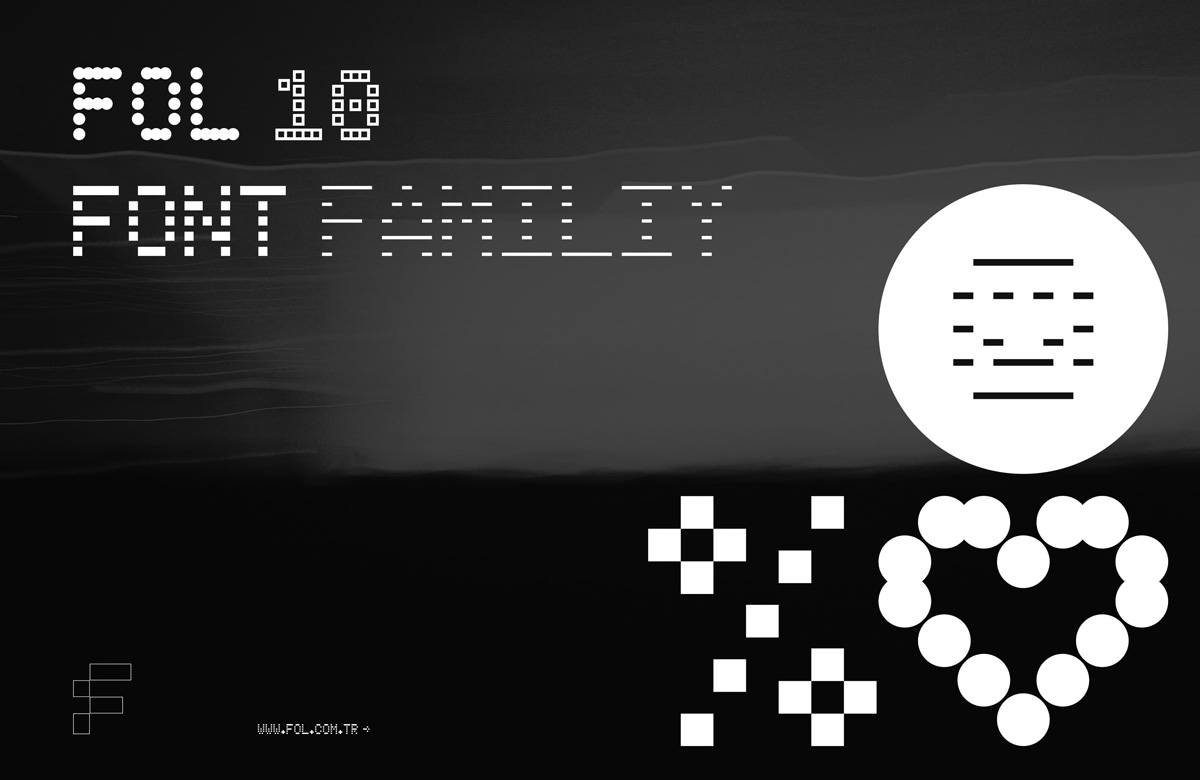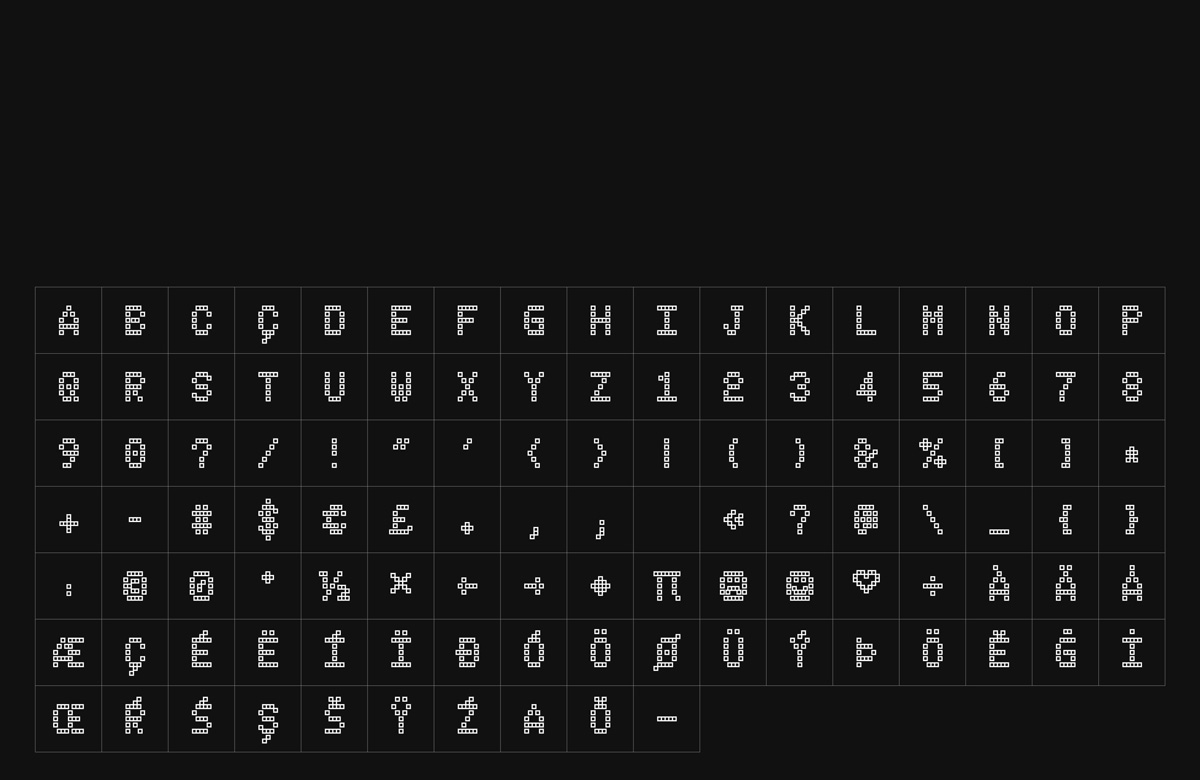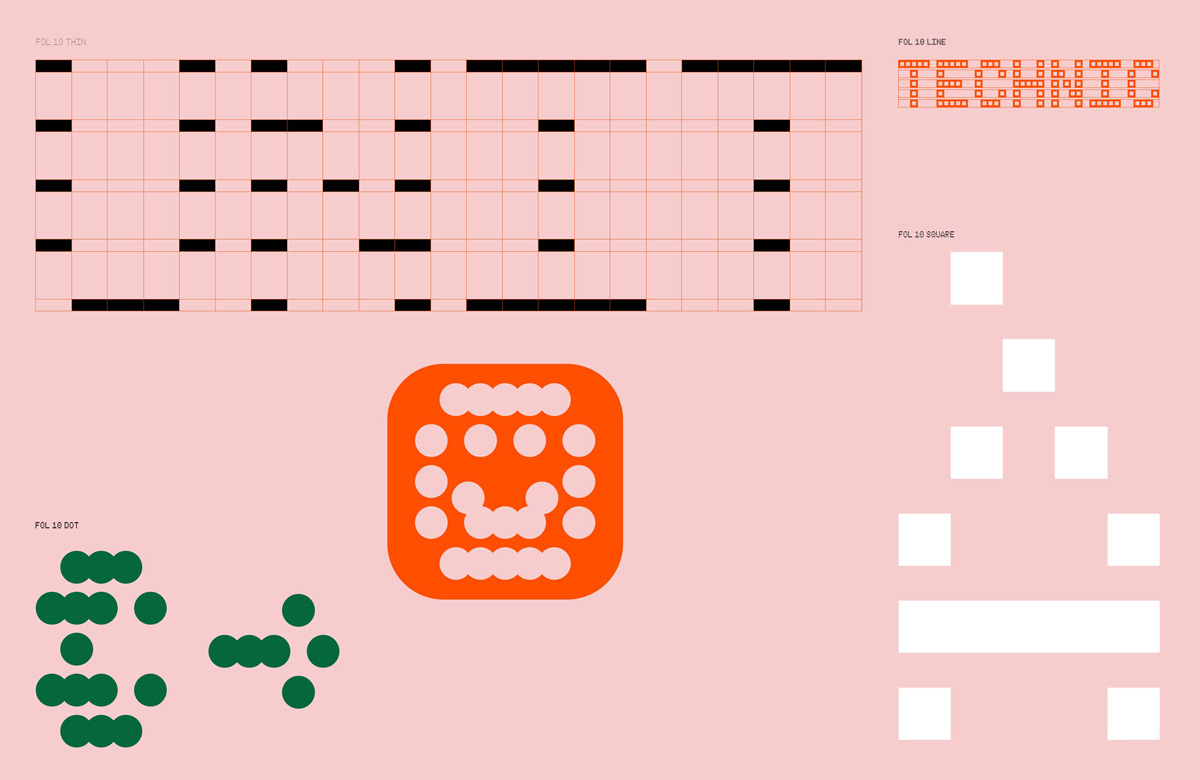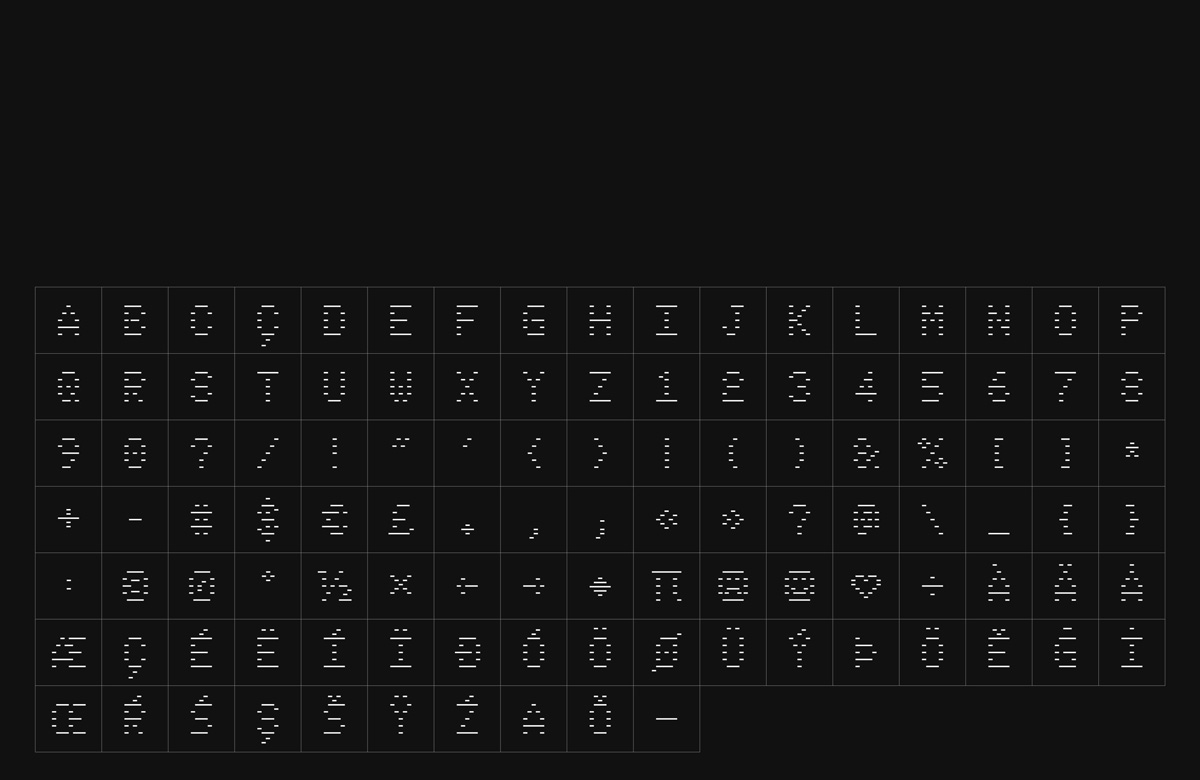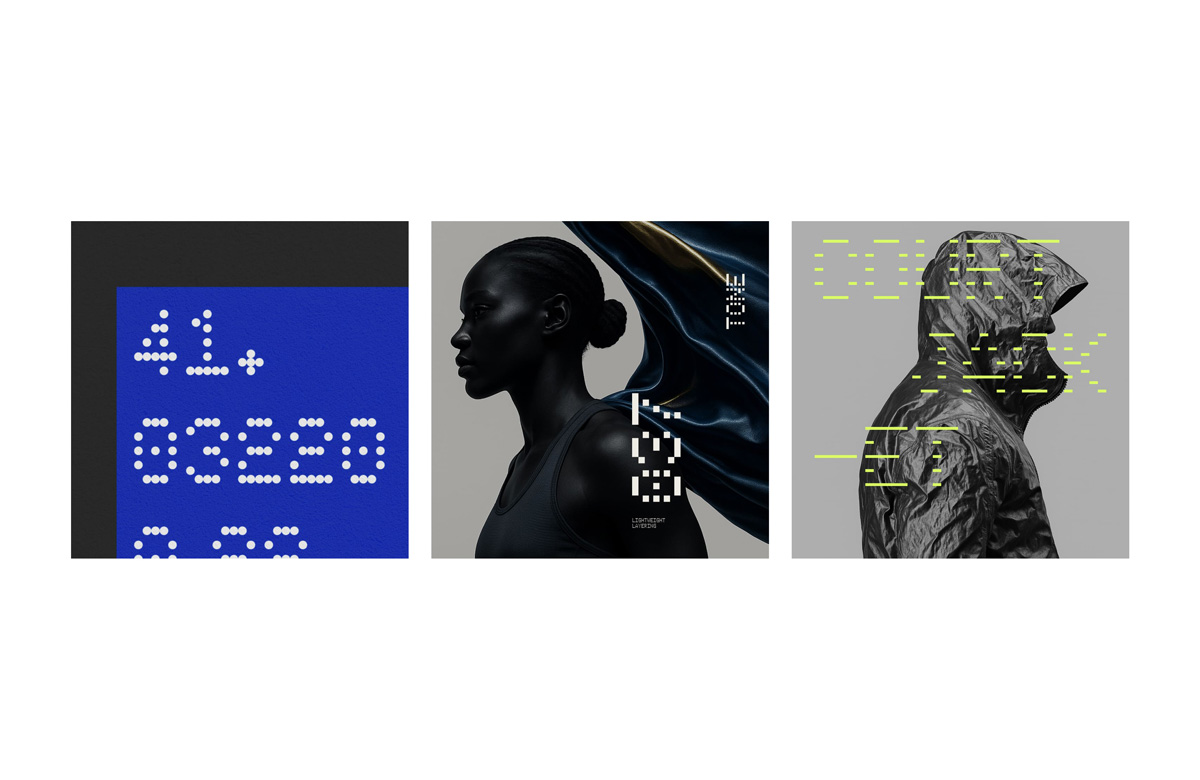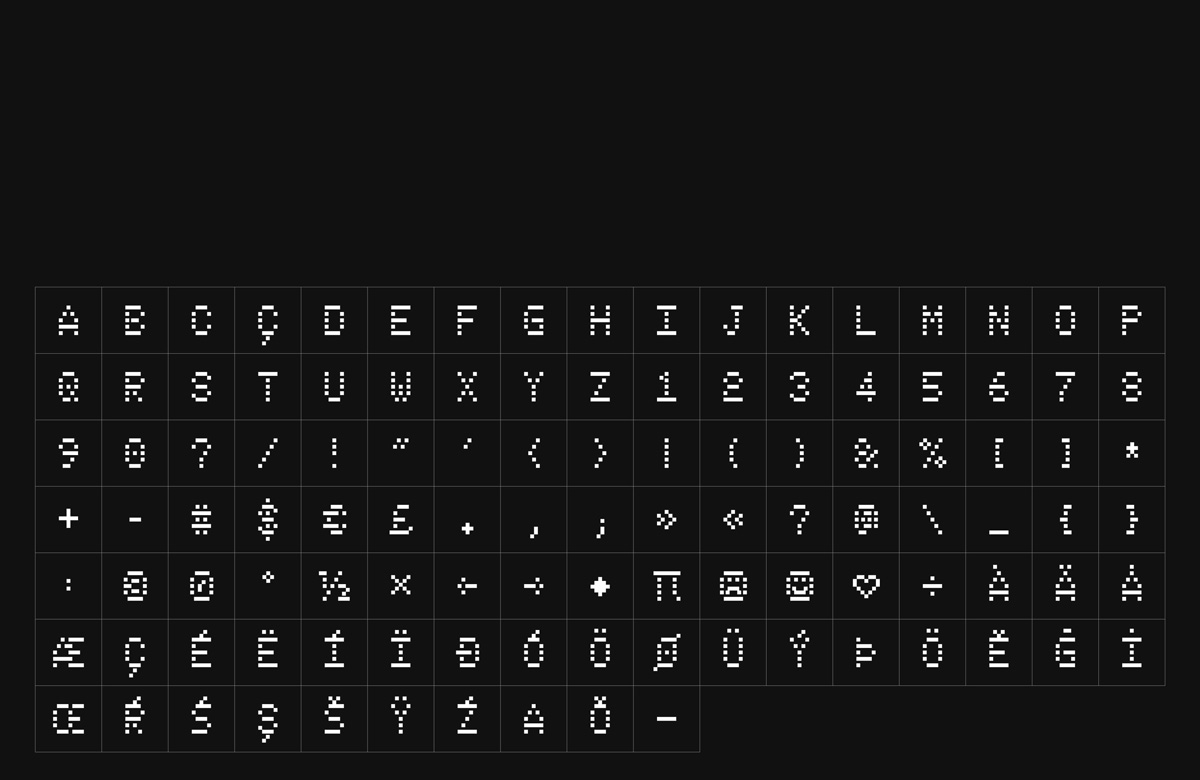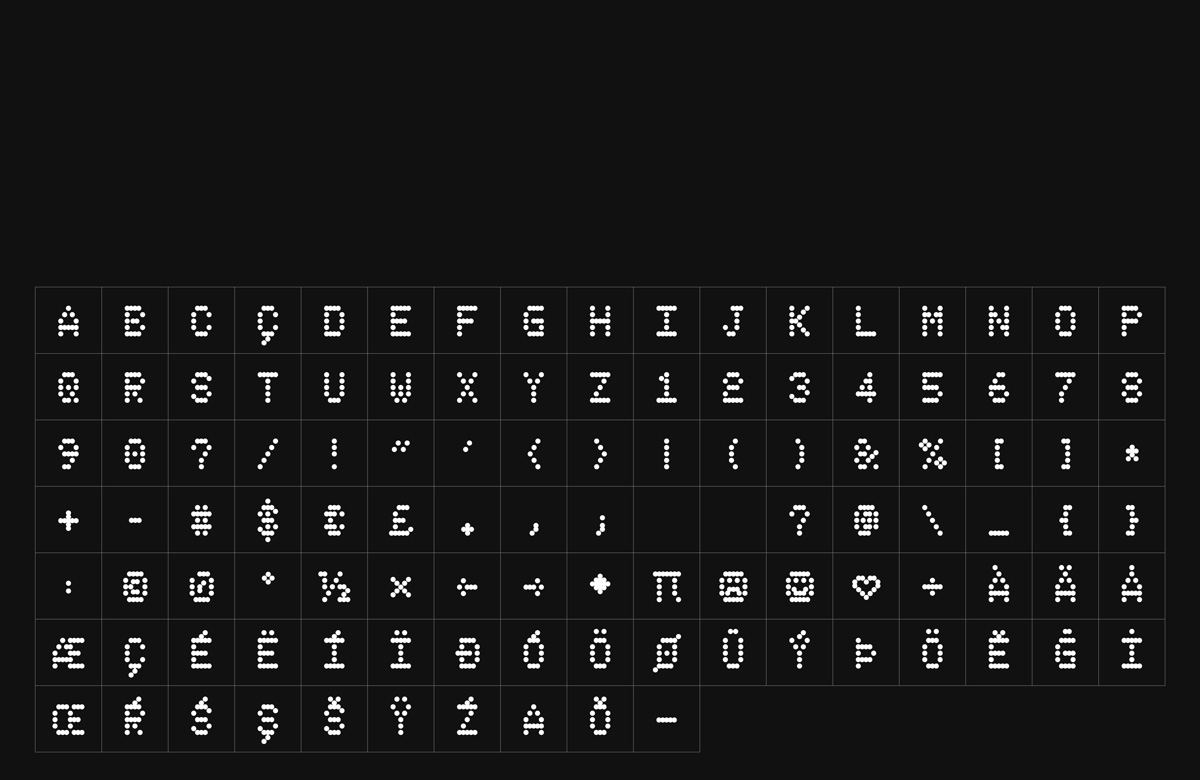
Fol 10th Year Anniversary Typeface
An Experimental Typeface Family Built From Lines and Dots
Fol 10 is an experimental typeface family that celebrates Fol’s 10th anniversary by rethinking pixel aesthetics through a refined system of lines and dots. Built from a disciplined grid, its forms feel systematic and intentional—yet never static.
A decade of typographic exploration informs the project. Its construction reinterprets classic bitmap logic through contemporary minimalism, translating square pixels into expressive structural components. Across four distinct styles—Square, Line, Thin, and Dot—and a total of 112 characters, the family offers a digital, modular, and systematic typographic structure.